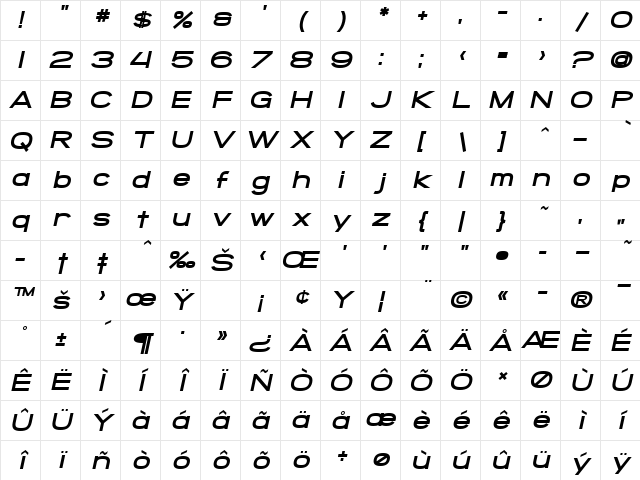
SF Grandezza Heavy Oblique Free Font
SF Grandezza Heavy Oblique
Style: Heavy Oblique
Complete SF Grandezza Heavy Oblique glyph index. Displaying only characters natively supported by SF Grandezza Heavy Oblique font.
Design Context for SF Grandezza
SF Grandezza is a composed and adaptable typeface that performs quietly and consistently across a wide range of design contexts. The slanted form adds forward momentum and visual energy.
Pro Tip: Use SF Grandezza for emphasis, pull quotes, and subheadings where its slanted energy can add rhythm to the layout.